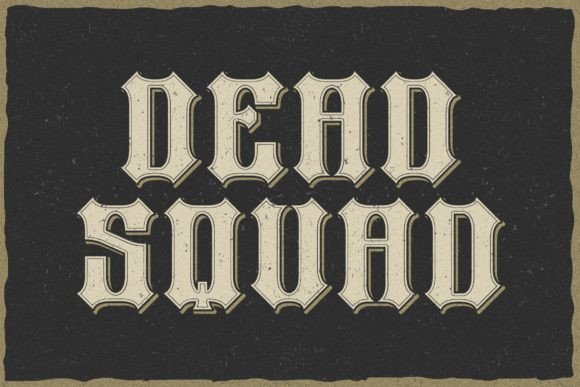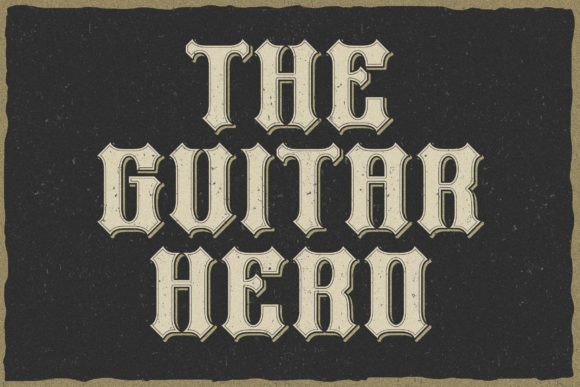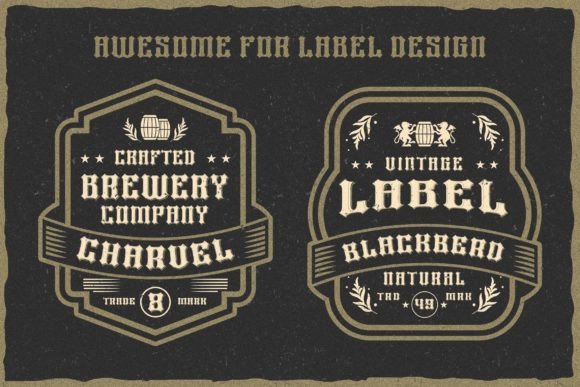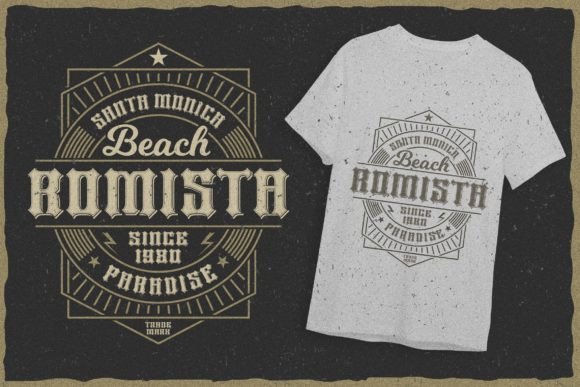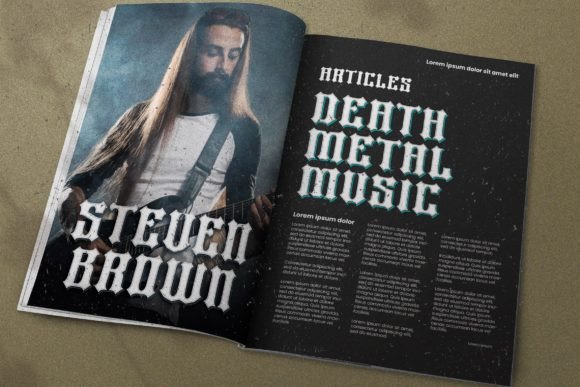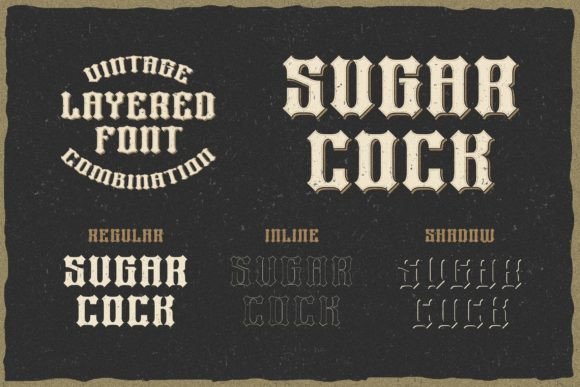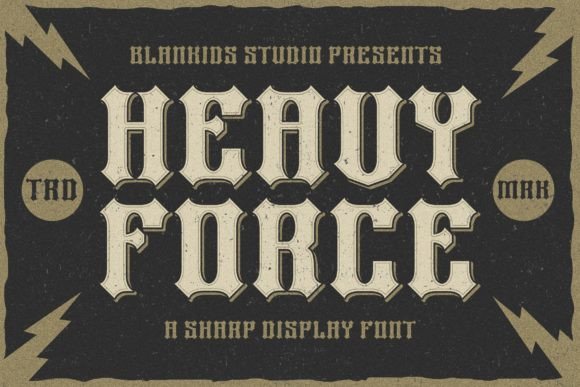
Introducing Heavy Force Font: The Ultimate Blackletter Font for Dramatic Designs
Are you looking for a font that can add a touch of drama and elegance to your design projects? Look no further than Heavy Force Font, a stunning blackletter font that is perfect for any project. With its traditional look and versatile style, Heavy Force Font is an ideal choice for designers and crafters who want to make a statement.
What is Heavy Force Font?
Heavy Force Font is a blackletter font that is inspired by traditional Gothic calligraphy. Its bold and dramatic strokes are perfect for creating eye-catching designs that demand attention. The font features intricate details and ornate flourishes, giving it a timeless and classic look that is sure to impress.
Key Features of Heavy Force Font
- Traditional Blackletter Style: Heavy Force Font features a traditional blackletter style that is reminiscent of Gothic calligraphy. Its bold strokes and intricate details make it perfect for creating dramatic and eye-catching designs.
- Versatile and Timeless: Heavy Force Font is a versatile font that can be used for a wide range of design projects, from logos and branding to posters and packaging. Its timeless style ensures that it will never go out of fashion.
- Easily Readable: Despite its bold and dramatic style, Heavy Force Font is easily readable, making it perfect for use in body text as well as headlines.
- Multilingual Support: Heavy Force Font supports multiple languages, making it a great choice for designers who work with international clients.
Uses of Heavy Force Font
Heavy Force Font is a versatile font that can be used for a wide range of design projects, including:
- Logos and Branding: Heavy Force Font is perfect for creating bold and dramatic logos that make a statement.
- Posters and Flyers: The font’s bold style makes it ideal for use in posters and flyers that need to grab attention.
- Packaging Design: Heavy Force Font can be used to create eye-catching packaging designs that stand out on store shelves.
- Web Design: The font’s readability and versatility make it a great choice for use in web design, from headings to body text.
Tips for Using Heavy Force Font
Here are some tips for getting the most out of Heavy Force Font:
- Use it Sparingly: Heavy Force Font is a bold font, so it’s best to use it sparingly to avoid overwhelming the reader.
- Pair it with a Simple Font: Pair Heavy Force Font with a simple font to create contrast and make your design stand out.
- Experiment with Colors: Heavy Force Font looks great in a range of colors, so don’t be afraid to experiment and find the perfect color for your design.
Heavy Force Font is a stunning blackletter font that is perfect for designers and crafters who want to add a touch of drama and elegance to their design projects. With its traditional look, versatile style, and easily readable design, Heavy Force Font is an ideal choice for any project. Whether you’re creating logos, posters, packaging, or web designs, Heavy Force Font is sure to make a statement.